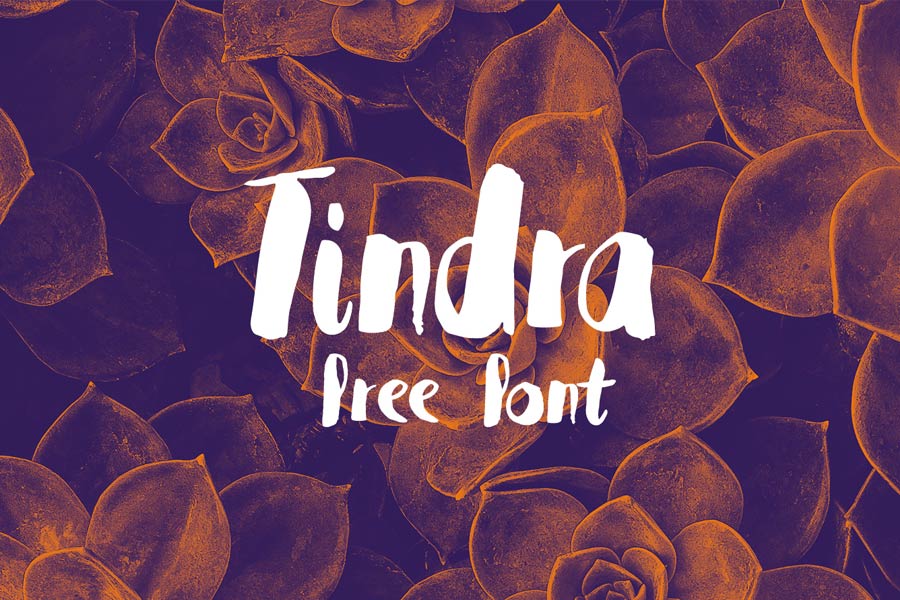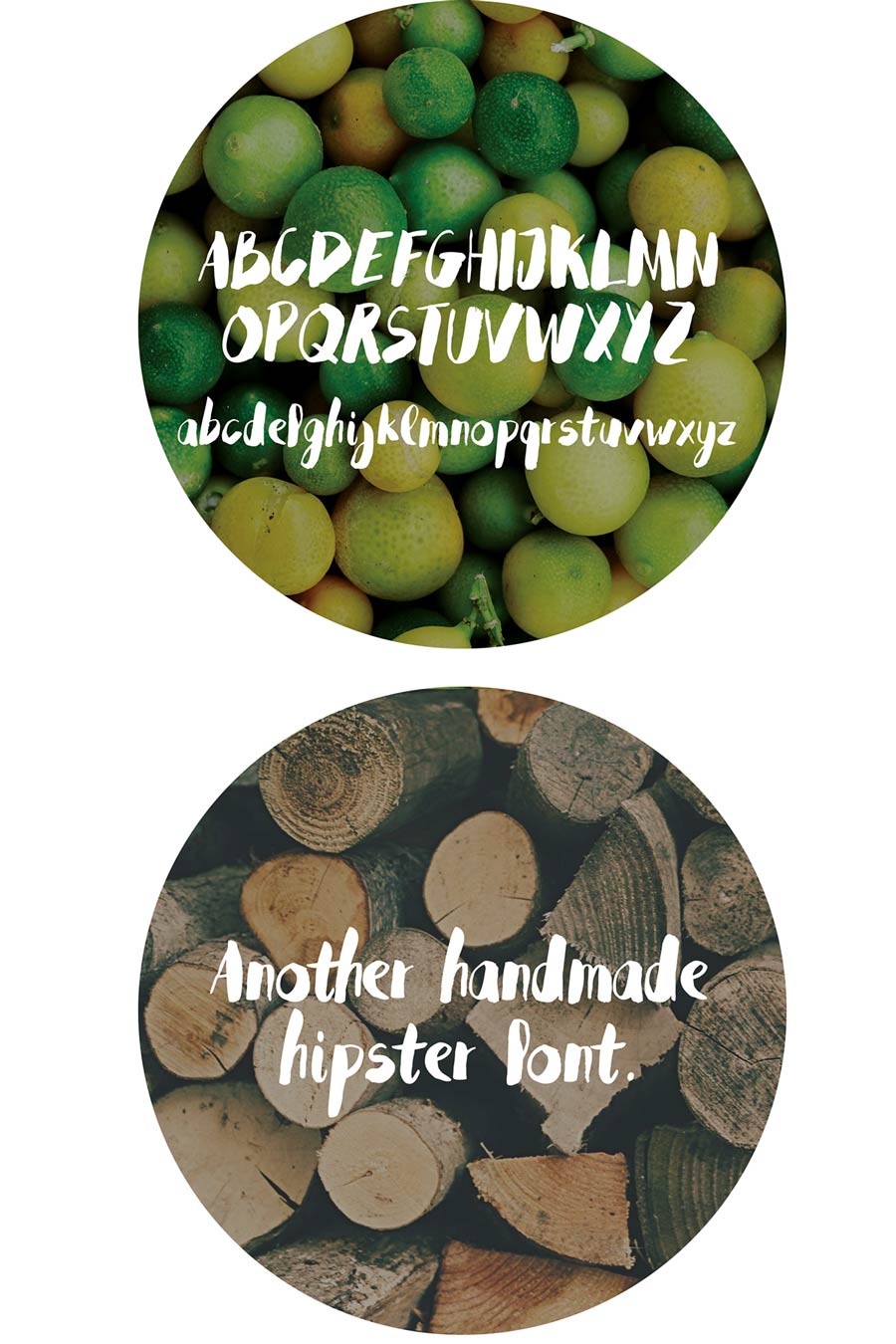
Tindra is a free-to-download hand painted brush font that supports Latin, Swedish, Spanish , Norweigian and German characters. According to the author, this font was first drawn on paper then translated carefully into a font. The outcome is a stylish and hippy font face for your next hipster project.